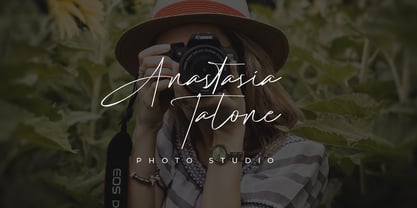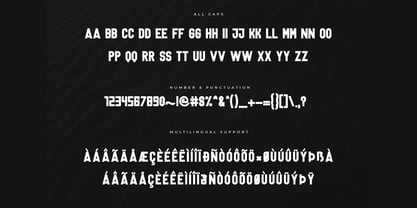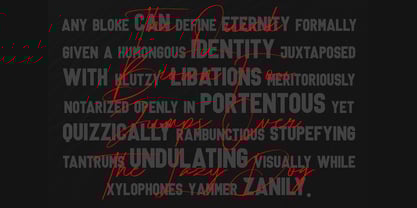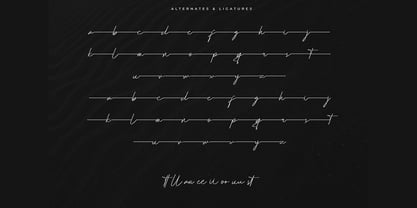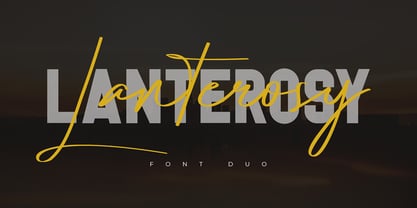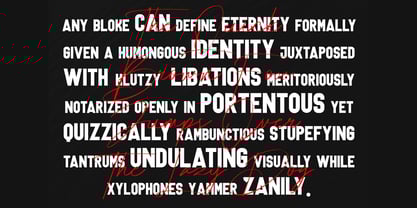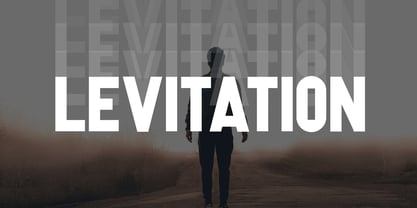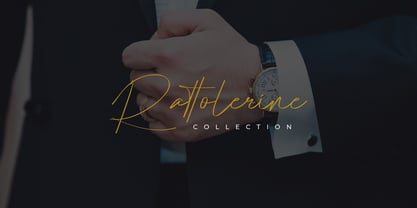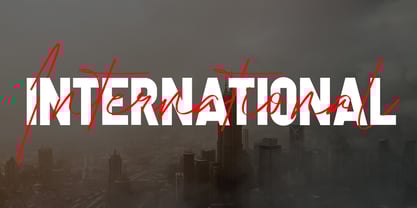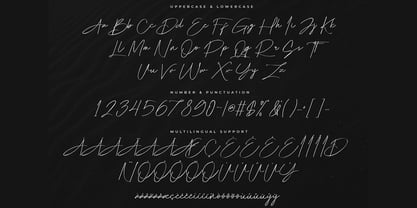
Lanterosy
by Jadatype
The Lanterosy Font Family was designed by Jada Akbal and published by Jadatype. Lanterosy contains 2 styles and family package options.
Lanterosy is a classic duo font (Script & Sans Serif). Use this font for any crafting project that requires a personalized look!. This font is PUA encoded which means you can access all of the glyphs and swashes with ease!. contains standard English letters, numbers, punctuation, Ligatures and several accents that support multilingualism.
About Jadatype
Jadatype is a 1-member indie font foundry formed in early 2021. it has created more than 200 fonts with various types of styles. the designer doesn't really have a special style when creating his fonts, but he certainly likes the fonts he has created and he hopes you like them too. the various types of font styles that have been uploaded by Jadatype are specially created by one designer. the designer has a degree in engineering but loves the world of typography. he likes to create font displays with styles that are different, eye-catching and young-playful themes.